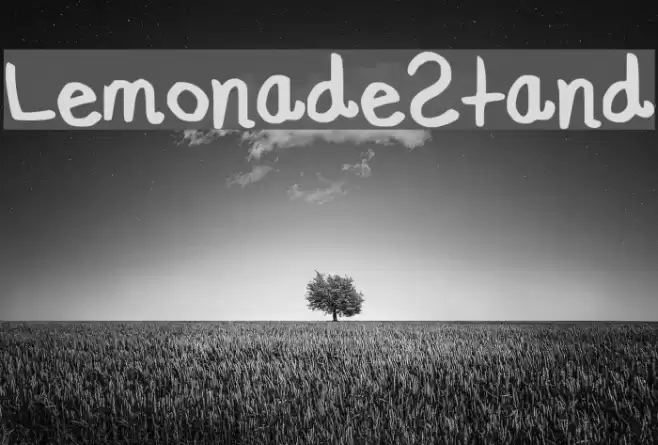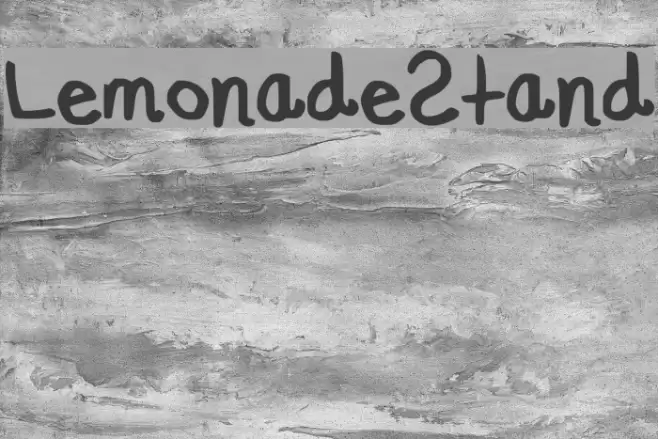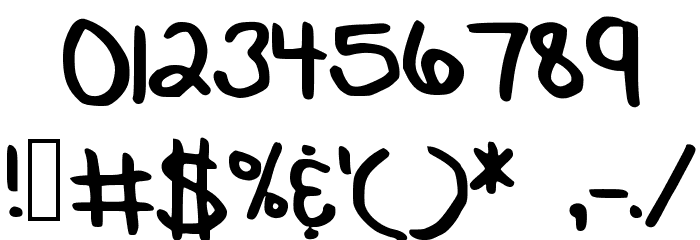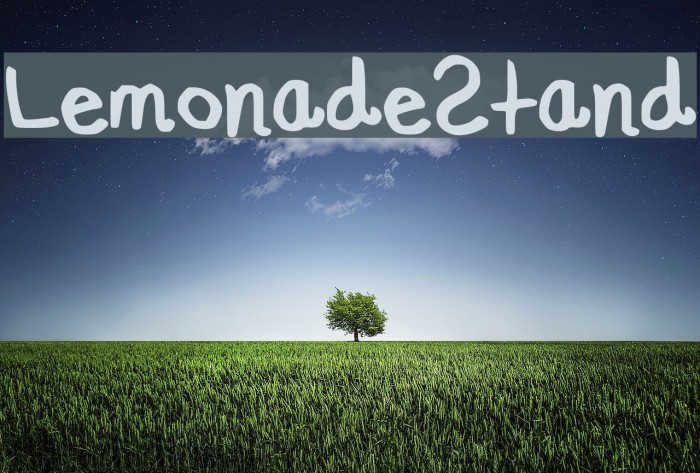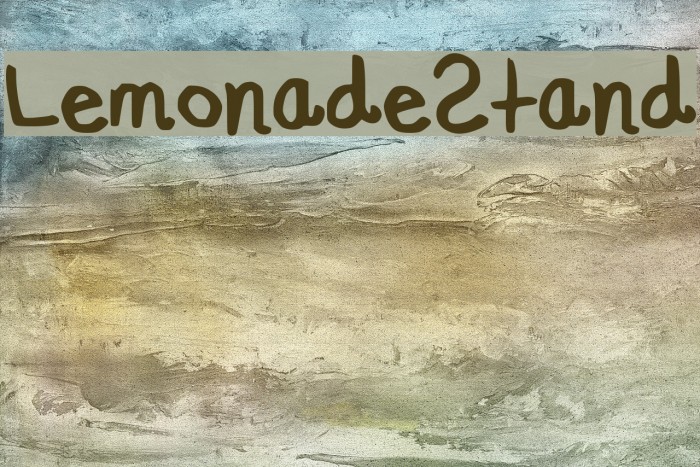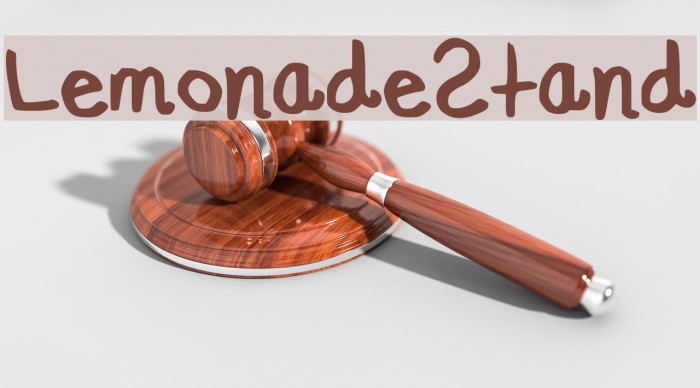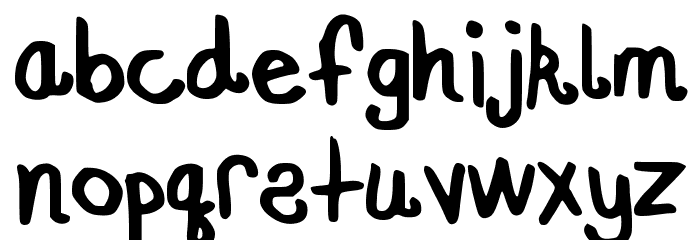
LemonadeStand Font
LemonadeStand Description
This playful and whimsical font features a handwritten style with a casual and friendly appearance. The letters are slightly irregular, adding a personal touch that mimics the look of hand-drawn text. The strokes are bold and rounded, giving it a soft and approachable feel. The uppercase and lowercase letters maintain a consistent style, with the numbers and special characters following suit. This font is perfect for projects that require a fun and informal vibe, such as children's books, greeting cards, or playful branding.
A playful, handwritten font with bold, rounded strokes and a casual style from Handwritten fonts.
- Proposed Projects: Ideal for children's books, greeting cards, playful branding, and informal invitations.
- Overall Style: Playful
- Use Case: Headlines, Logos, Informal text